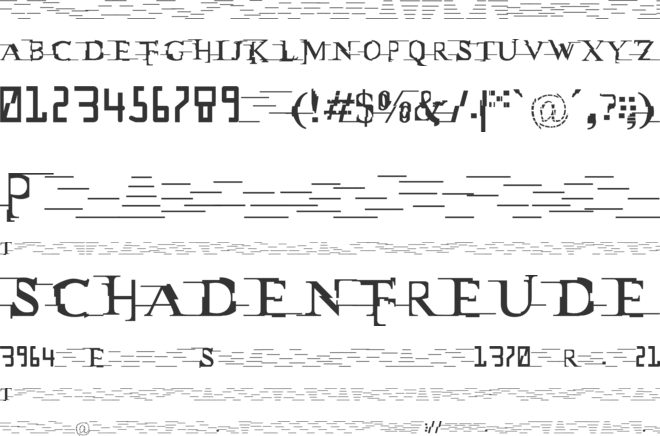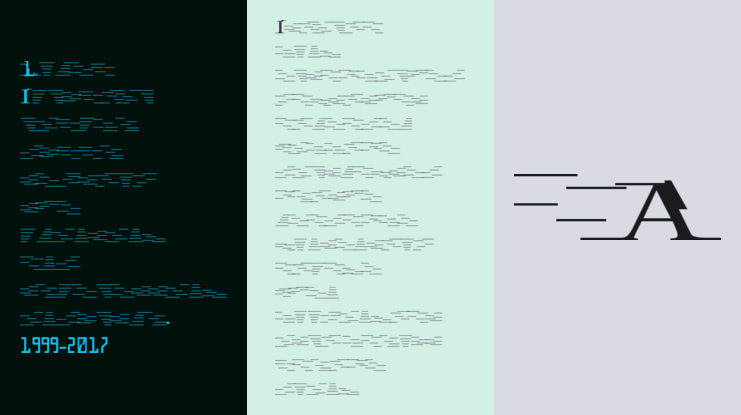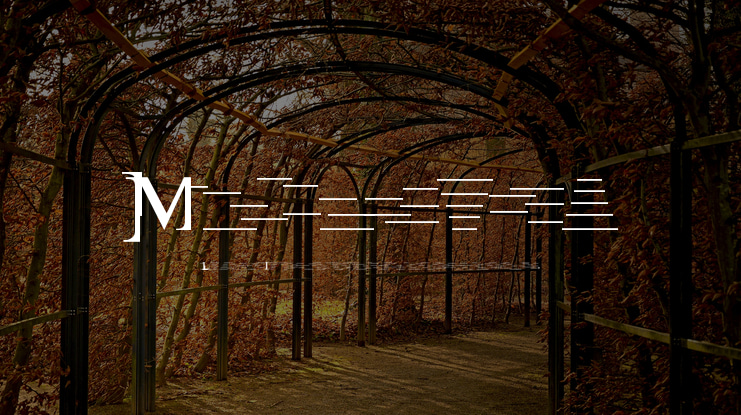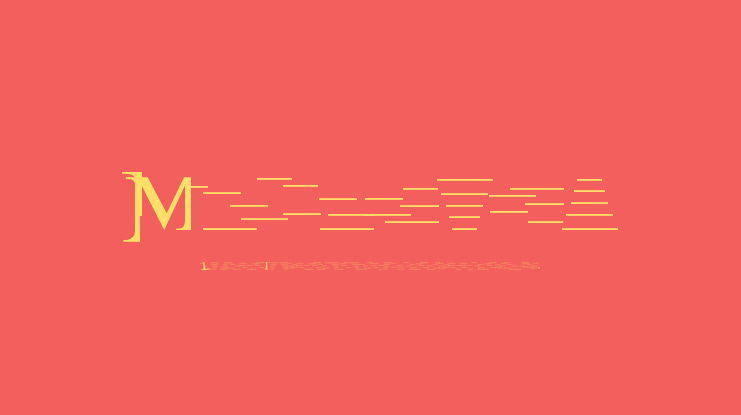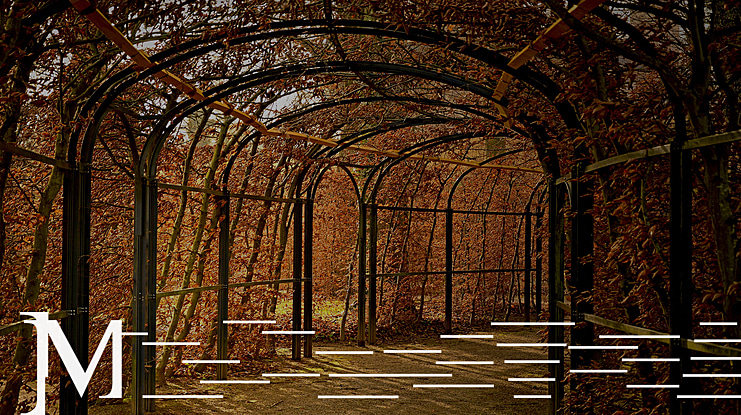
Miltown is based on the M, A, T, R, I, and X forms of The Matrix movie title. I tried to be as faithful as I could to those particular forms. I had no idea what the other forms in that particular alphabet would have looked like, so I used my imagination. Hope you like it and use it in good health.
Here are some helpful pointers regarding this font:
- The capital letters of this font are what actually constitute the alphabet, while the lower case characters are different variations of possible fillers or space alternates. A character table PDF should be enclosed with the font to explain this. Some JPEGs of very basic sample usage should also be included. For best showing, on screen and in print, I recommend that you use the font at 72 points and above.
- This font didn't take much to make. About 30 hours altogether. The demolition of Times New Roman, and of classic type in general, has seen many spins and ramifications in a large percentage of designs and publications that started in the late 1980s and is currently still happening. This is exactly what the designer of the Matrix titling did, and this is precisely what the Miltown font is: destruction of classic type. I'm not particularly fond of demolition jobs, but the object here was to replicate the Matrix's title. Let's just say that I winced a lot while making this thing.
- Miltown is the name of a tranquilizer/anti-depressant that was commonly prescribed by psychiatrists in the late 1960s and throughout the 1970s. The current day equivalent drugs have names like Prozac, Effexor, Zoloft, Paxil, Wellbutrin, Lithium, Valium, and so on. Miltown was one of the very first "mental health" drug approved by governments. Its side effects were numerous and warning labels about it were all over the place. For more information about Miltown, just type ["Miltown" AND "mental"] (without the brackets) in your favourite web search engine.